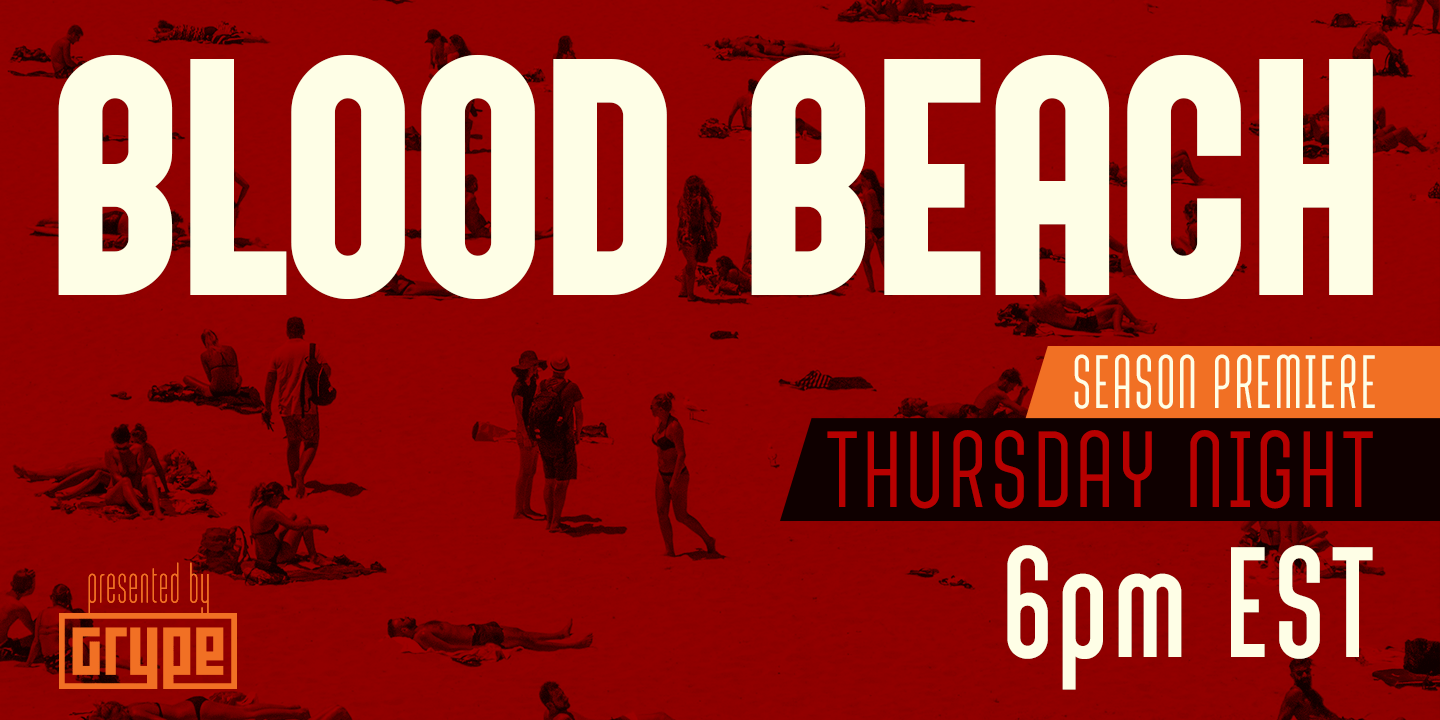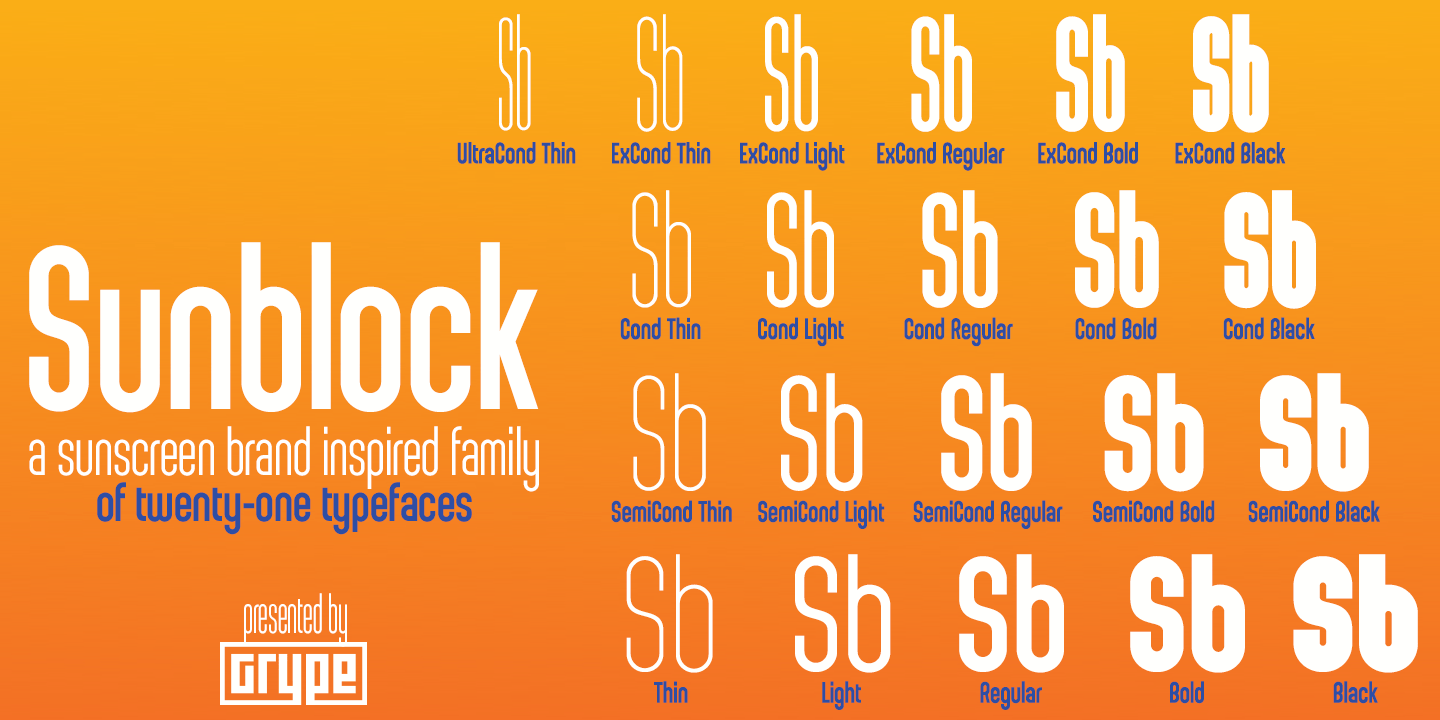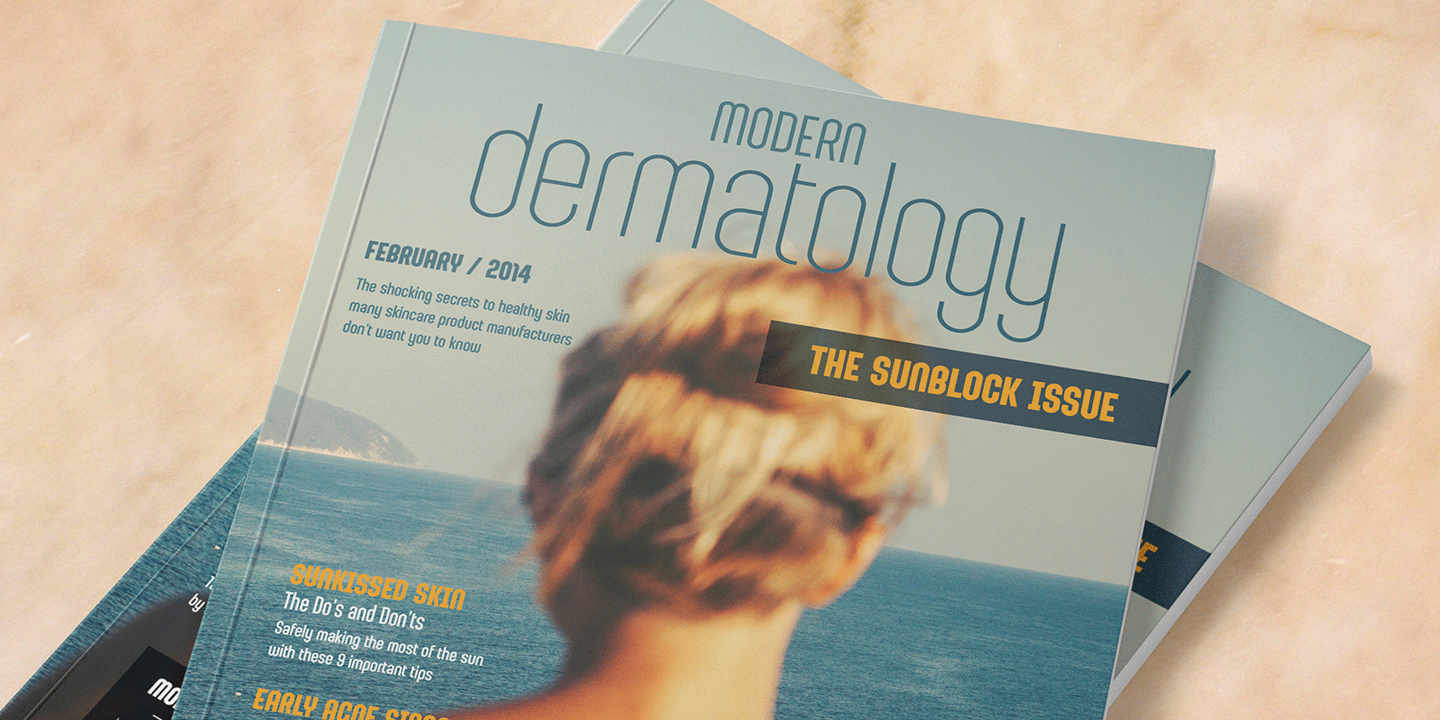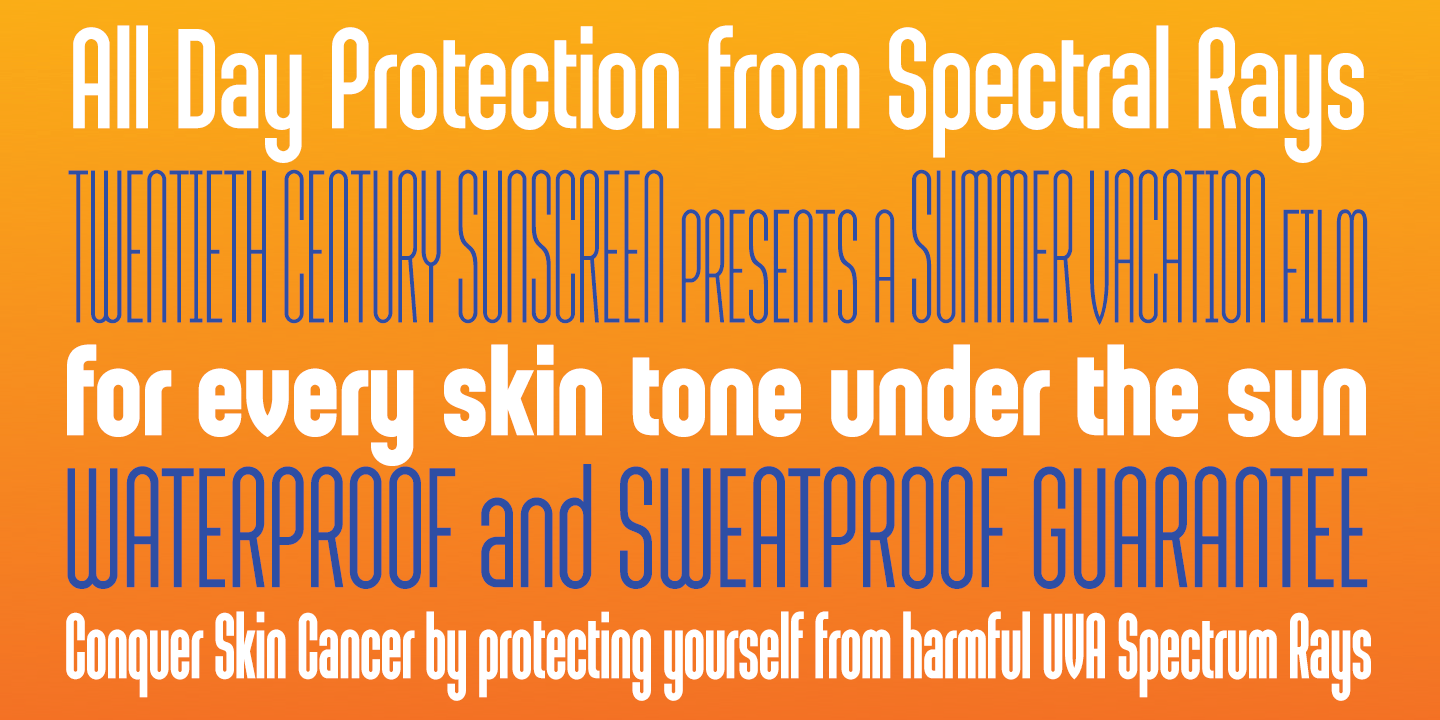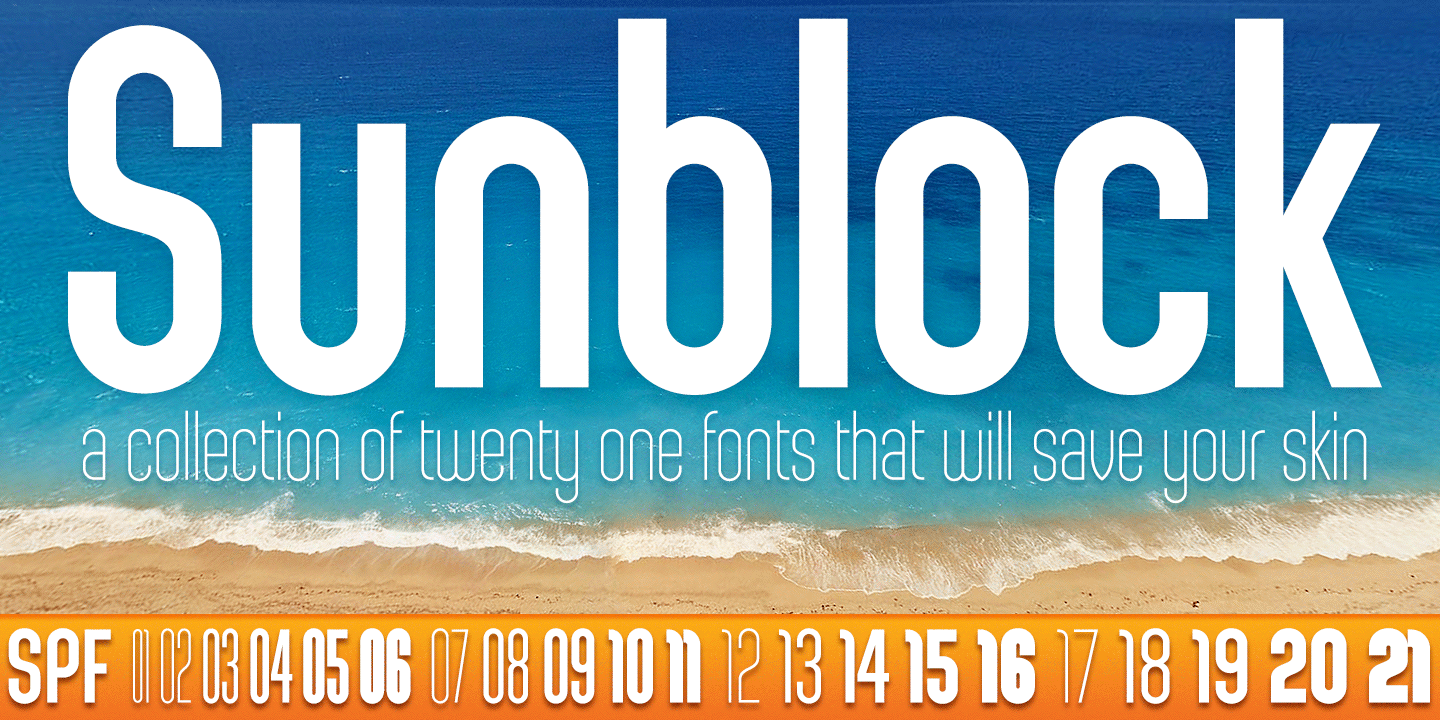
About Sunblock Pro Collection
Clean and geometric deco sans typefaces have been used in a range of scientific publications, corporate logotypes, and beauty products over the years. However, a typeface of this style has yet to have an expansive range of widths and weights to become…